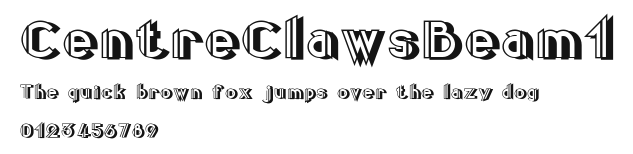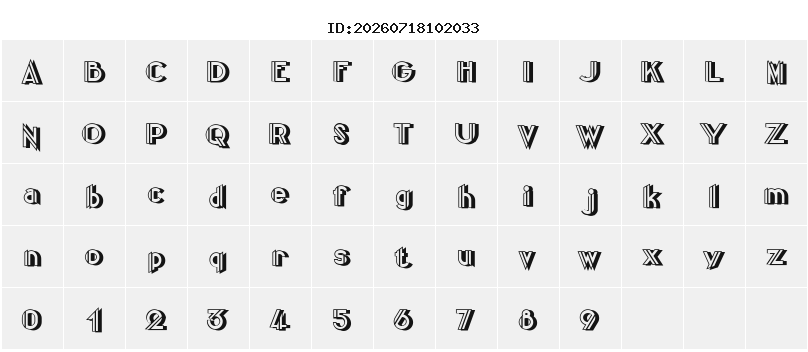
• Font Name: CentreClawsBeam1
• Designer: Peter Wiegel
About CentreClawsBeam1.ttf
CentreClawsBeam1.ttf is a modern, elegant sans-serif font designed for ultimate readability and visual harmony. Perfect for branding, headlines, web design, and print materials.